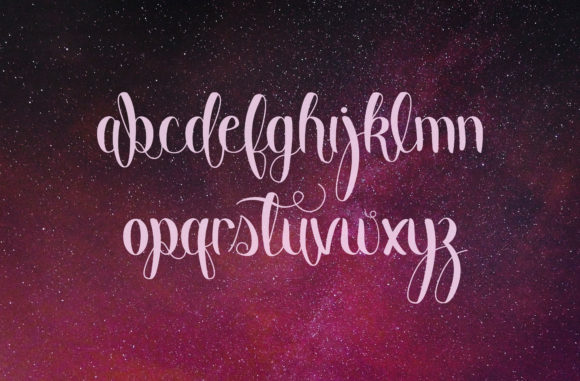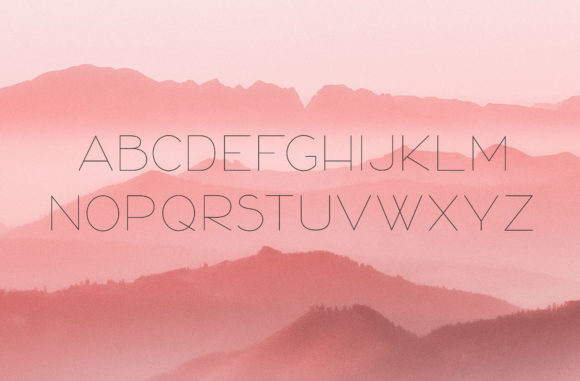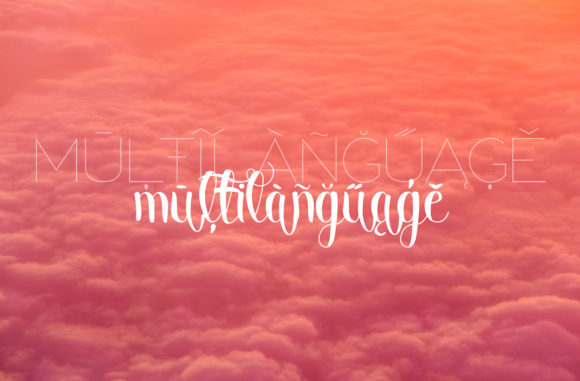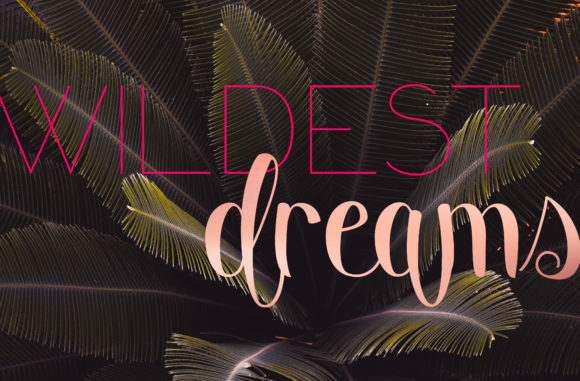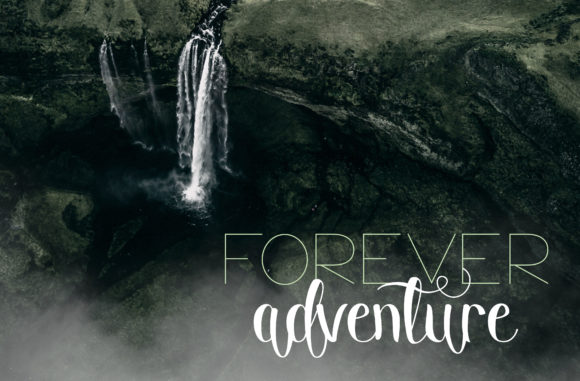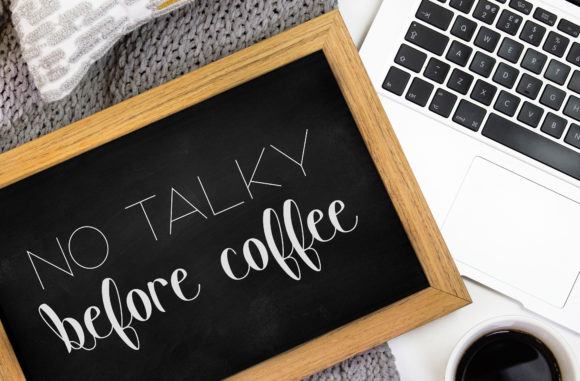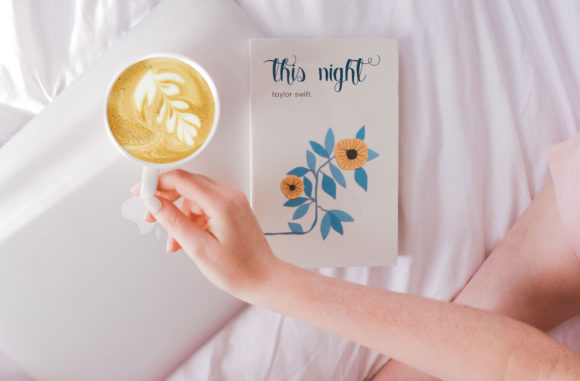
Ever Enchanted Duo Font
About Ever Enchanted Duo Font
Ever Enchanted is an elegant font duo with a feminine touch. This font duo includes an all caps simple sans, and a whimsical lowercase script.